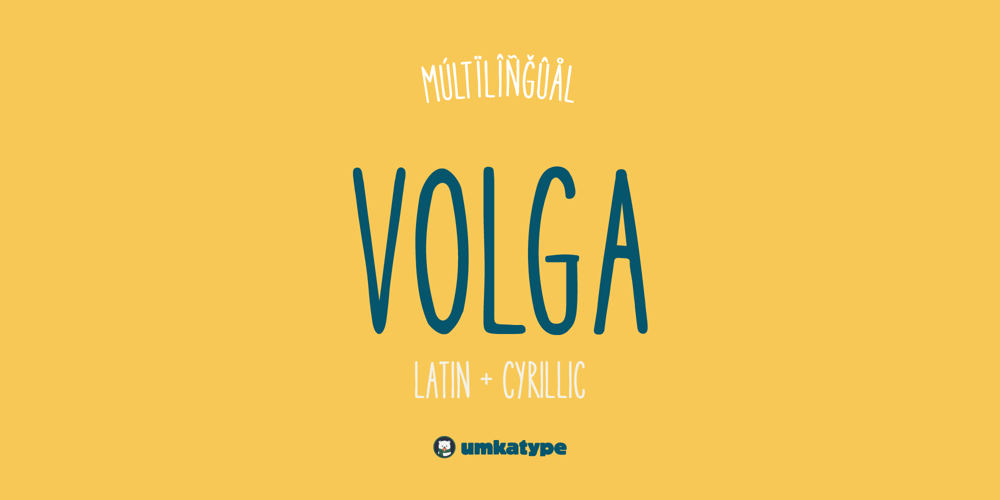
Volga Font Family was designed by Alper Çakıcı and published by Umka Type. Volga contains 1 styles and family package options. Volga is a modern, versatile handwritten font with excellent kerning, making it ideal for both digital and print use. It features full support for the Cyrillic language, allowing for seamless multilingual communication. Volga’s unique design combines classic proportions with a contemporary feel, making it stand out from other same categories fonts.It supports 68 Languages: Russian Afrikaans Albanian Asu Basque Bemba Bena Breton Catalan Chiga Cornish Danish Dutch English Faroese Filipino French Friulian Galician German Gusii Icelandic Indonesian Irish Italian Kabuverdianu Kalenjin Kinyarwanda Luo Luxembourgish Luyia Machame Makhuwa-Meetto Makonde Malagasy Manx Morisyen North Ndebele Norwegian Bokmål Norwegian Nynorsk Nyankole Oromo Portuguese Quechua Romansh Rombo Rundi Rwa Samburu Sango Sangu Scottish Gaelic Sena Shambala Shona Soga Somali Spanish Swahili Swedish Swiss German Taita Teso Turkish Uzbek (Latin) Volapük Vunjo Zulu